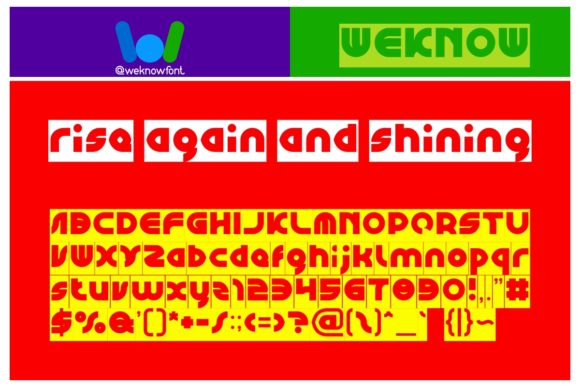
The Ultimate Guide to Graphic Design Font: Unleashing Creativity
I’ll never forget the time I was working on a project for a client who wanted a bold, eye-catching logo. I had a clear vision of what I wanted to create, but I was struggling to find the perfect font. That’s when I stumbled upon Graphic Design Font, and it completely changed the game. With its fancy and chunky lettered display style, I knew I had found the perfect fit. In this article, I’ll share my experience with Graphic Design Font, its unique features, and how to make the most out of it.
Here’s what I love about Graphic Design Font:
- ✨ Unique and natural style: Graphic Design Font has a one-of-a-kind look that makes it incredibly versatile and fitting for a wide range of designs.
- ✅ OpenType features: This font comes with a range of OpenType features, including glyphs and stylistic alternates, which give you endless possibilities for customization.
- 💡 Inspires creativity: Graphic Design Font’s distinctive style sparks imagination and encourages experimentation, making it perfect for designers, crafters, and creative hobbyists.
And here are a few quirks to keep in mind:
- 🤔 Legibility at small sizes: While Graphic Design Font looks amazing at larger sizes, it can become a bit tricky to read at smaller sizes. Make sure to test it out before committing to a specific size.
- ⚠️ Limited use in body text: Due to its chunky and decorative nature, Graphic Design Font is best suited for headlines, titles, and short phrases. It might not be the best choice for longer body text.
The Story Behind Graphic Design Font
Graphic Design Font was created with the goal of providing a unique, versatile font that could be used in a wide range of designs. Inspired by the world of graphic design, the font’s creator aimed to craft a font that would inspire creativity and add a touch of personality to any project.
| Font Name | Graphic Design Font |
| Author | weknow |
| What makes Graphic Design Font unique? | Graphic Design Font’s natural and unique style, combined with its OpenType features, make it a standout font that’s perfect for designs that require a touch of personality. |
| Is Graphic Design Font suitable for body text? | While Graphic Design Font is amazing for headlines and titles, it’s not the best choice for longer body text due to its chunky and decorative nature. |